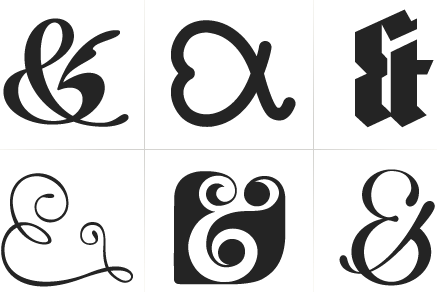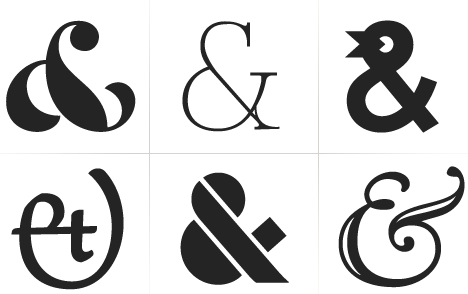
All proceeds from the sale of the $20 font "Coming Together" go to Doctors Without Borders to help with the relief efforts in Haiti. Nearly 400 designers contributed to the font, which consists entirely of ampersands.
The Society of Typographic Aficionados (SOTA) is proud to announce the release of “Coming Together”, a font created exclusively for Font Aid IV to benefit the victims of the recent earthquake in Haiti. The font consists entirely of ampersands, to represent the idea of people coming together to help one another. Type designers, graphic designers, and other artists from around the world contributed artwork to the font.
Nearly 400 designers contributed to “Coming Together”:
Font Aid: a Brief History
Swedish type designer Claes Källarsson conceived of the initial Font Aid project in 1999. More than 25 type designers participated in designing a collaborative font, with proceeds going to UNICEF to help war and disaster refugees. In 2001, SOTA became involved when Stuart Sandler was inspired by Källarsson’s efforts and initiated Font Aid II. This second collaborative charitable typeface was created to benefit the victims of the September 11 tragedies in the US. The font was made up of almost 100 question mark glyphs contributed by designers from over 20 countries. With your support, Font Aid can continue its efforts to assist others in dire need of aid.
In 2005, SOTA and Building Letters joined forces in Font Aid III to unite the typographic and design communities in raising funds to expedite relief efforts in countries affected by the Indian Ocean earthquake and tsunamis. More than 220 designers worldwide submitted over 400 glyphs for the collaborative Fleurons of Hope typeface.
Coming Together font